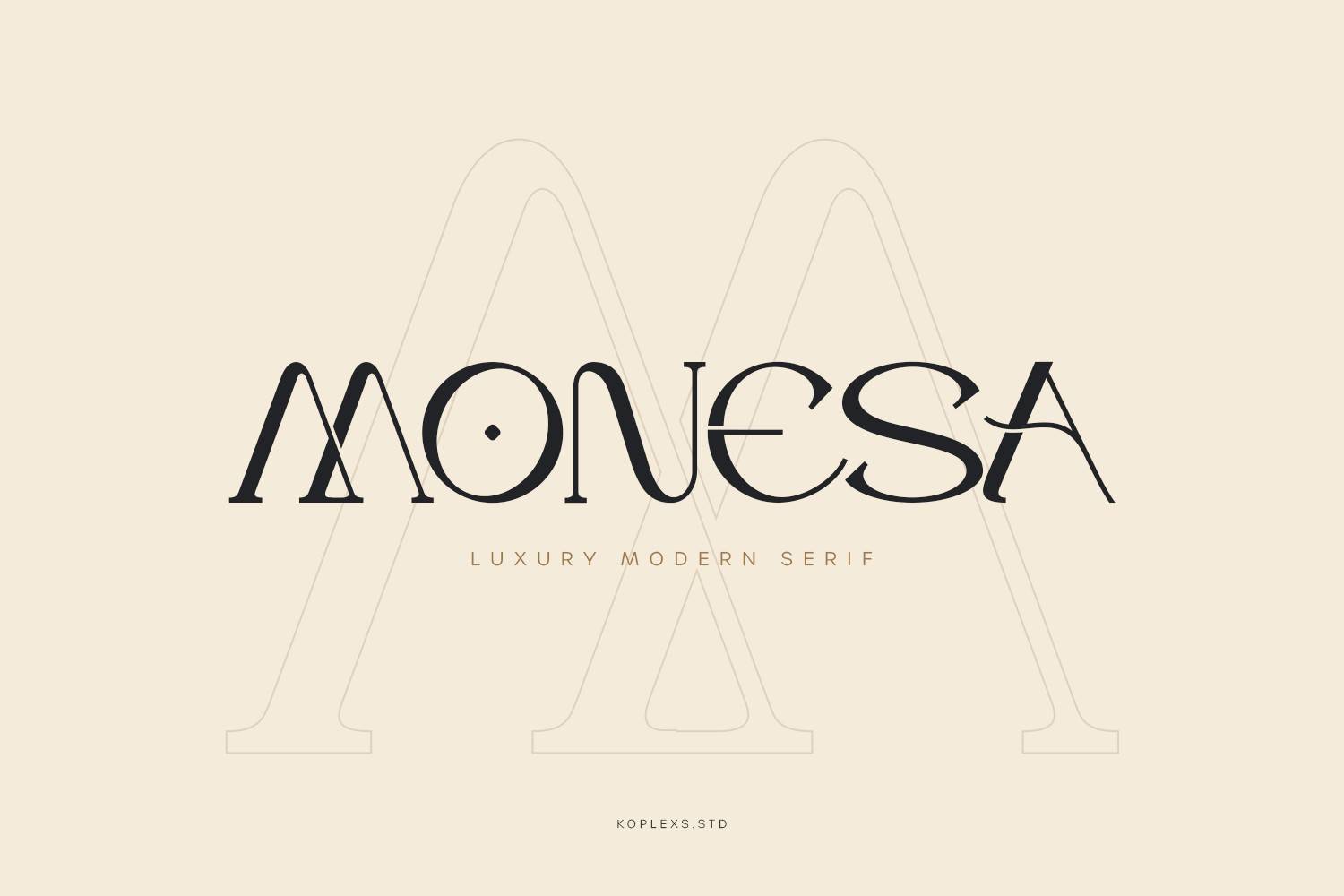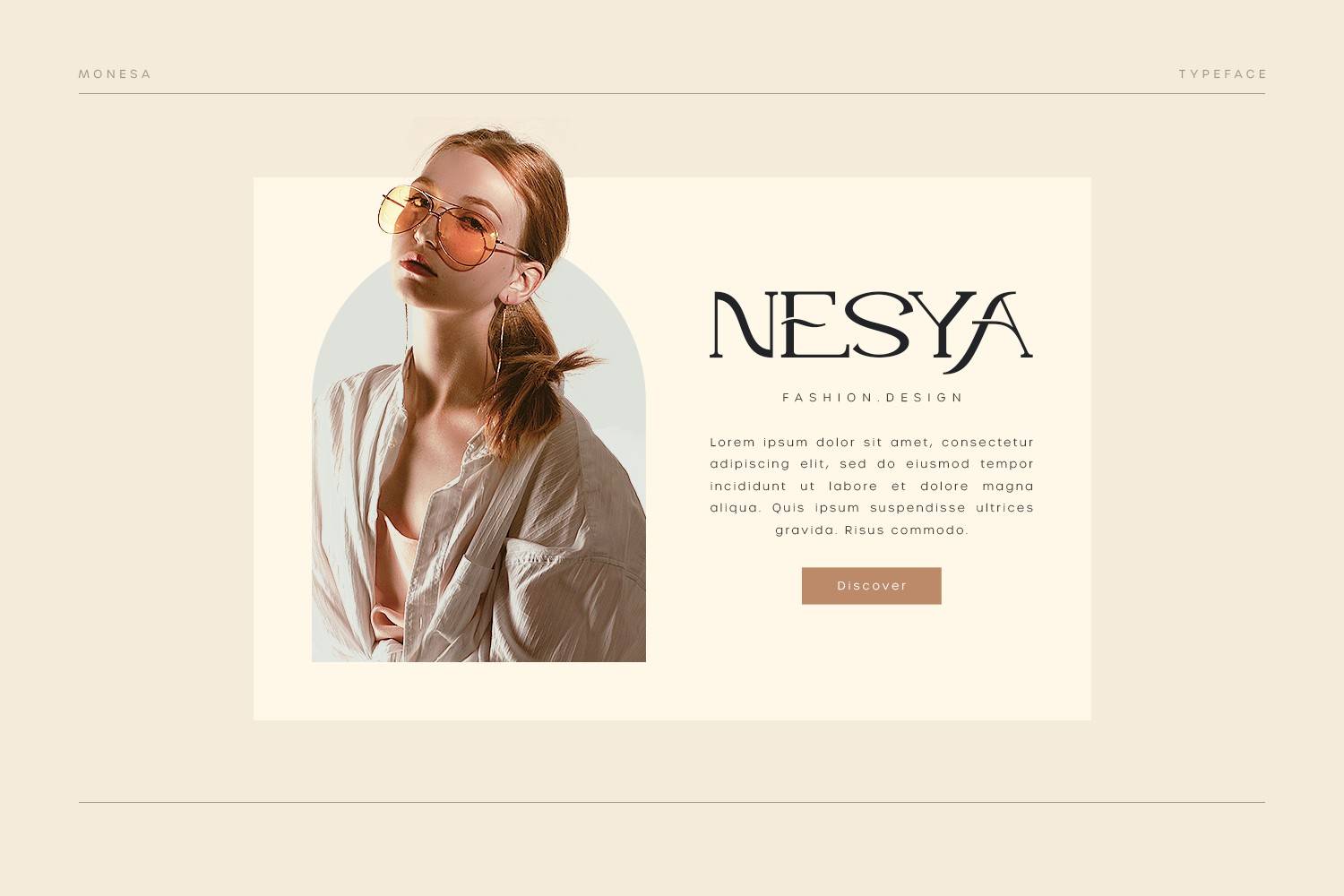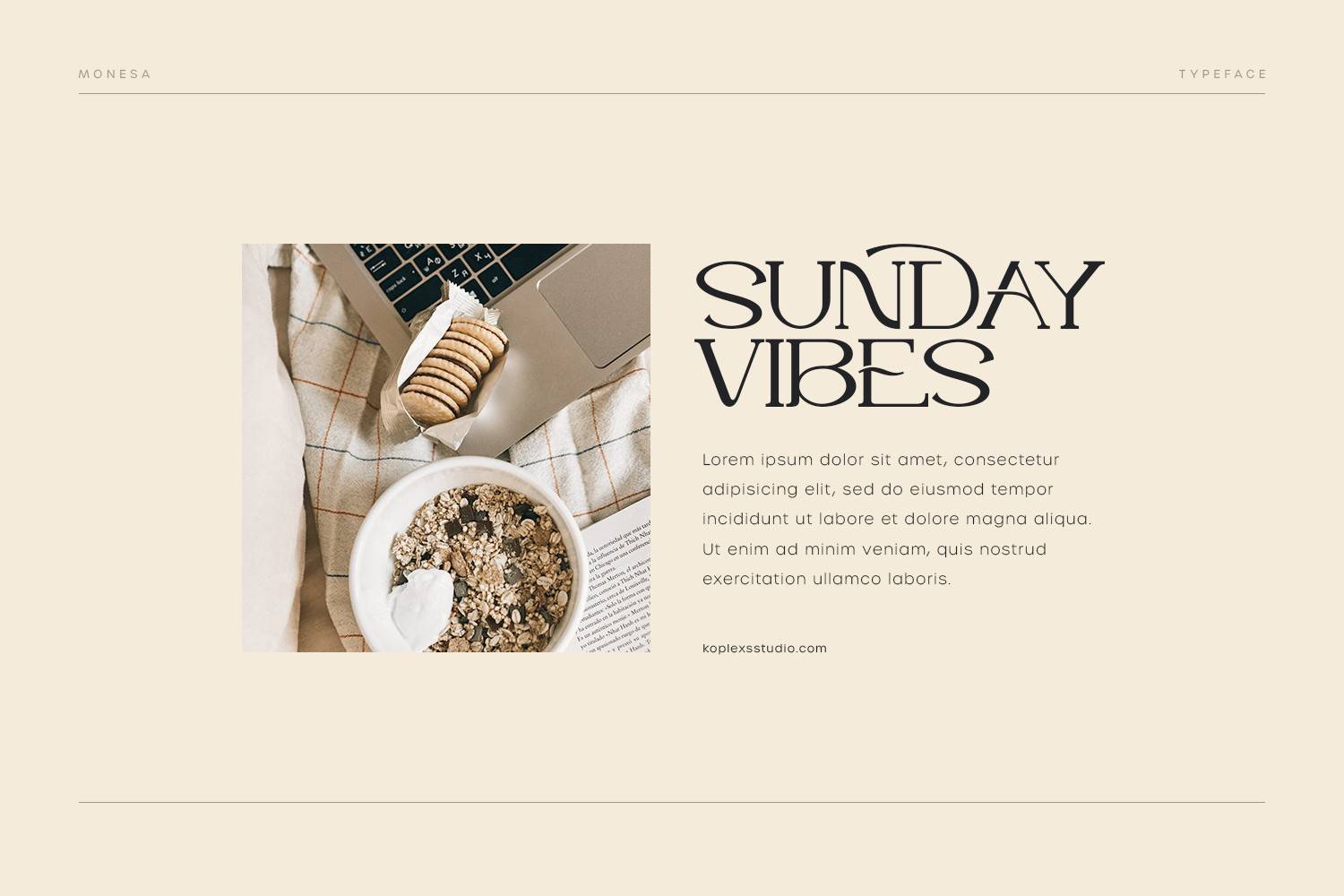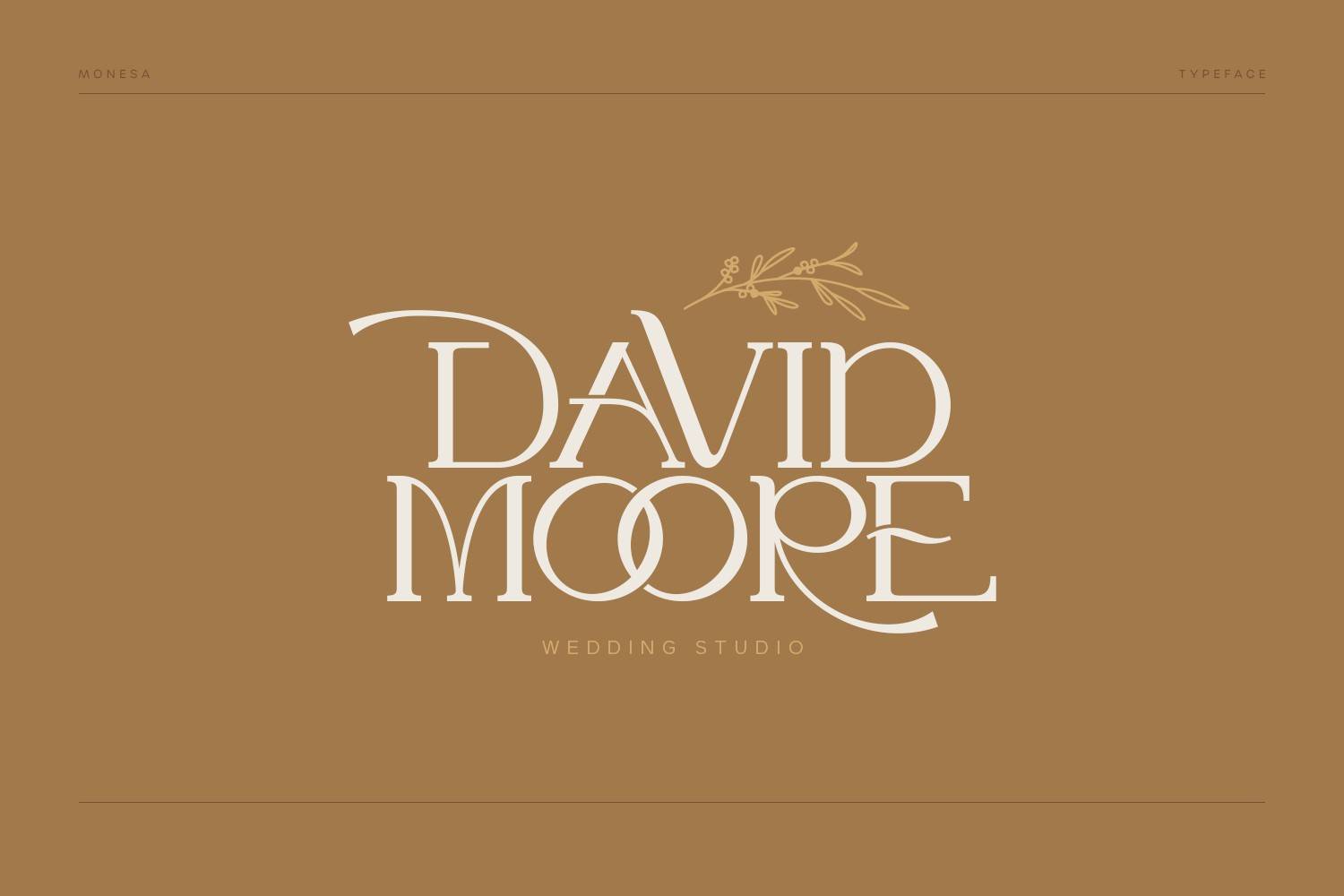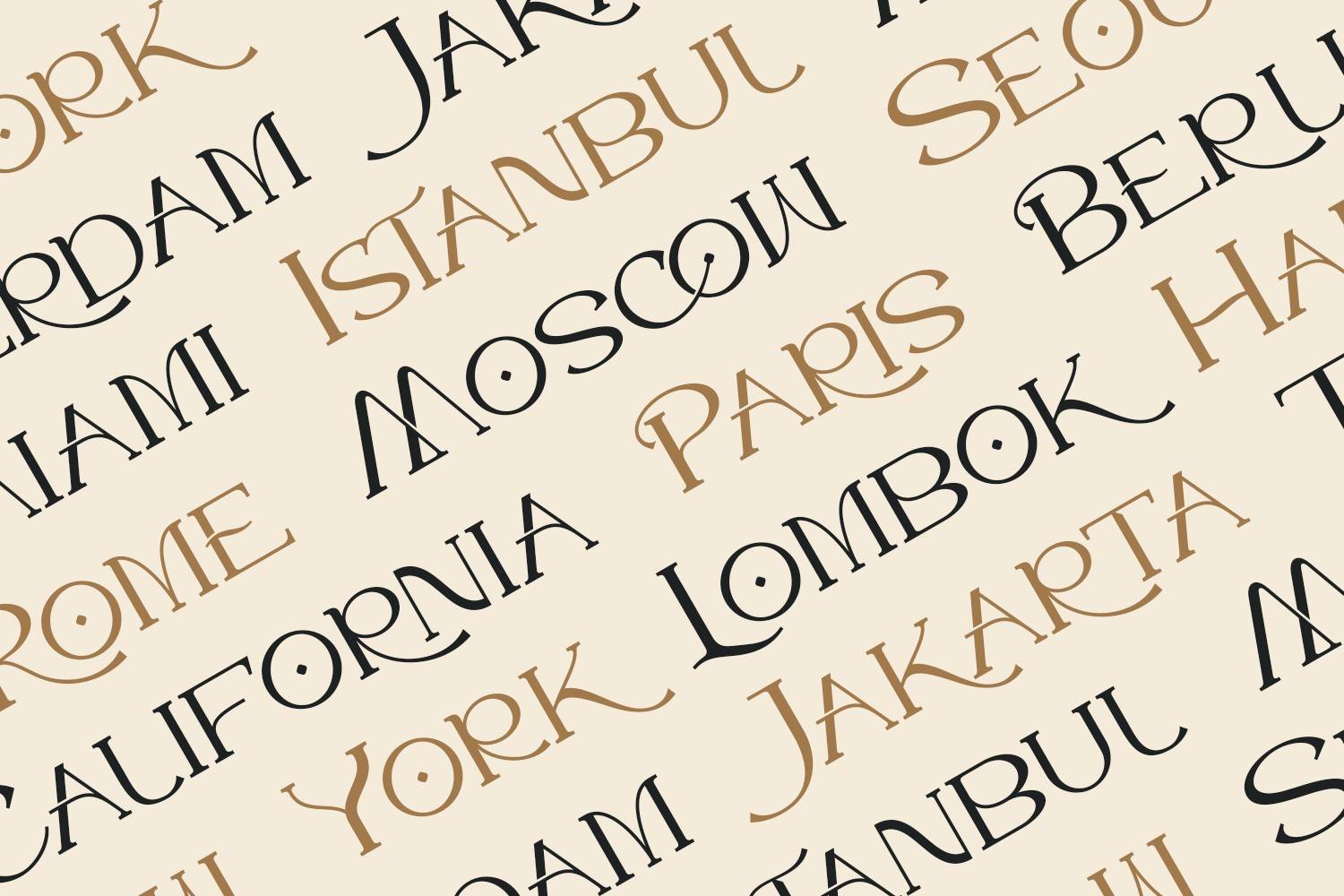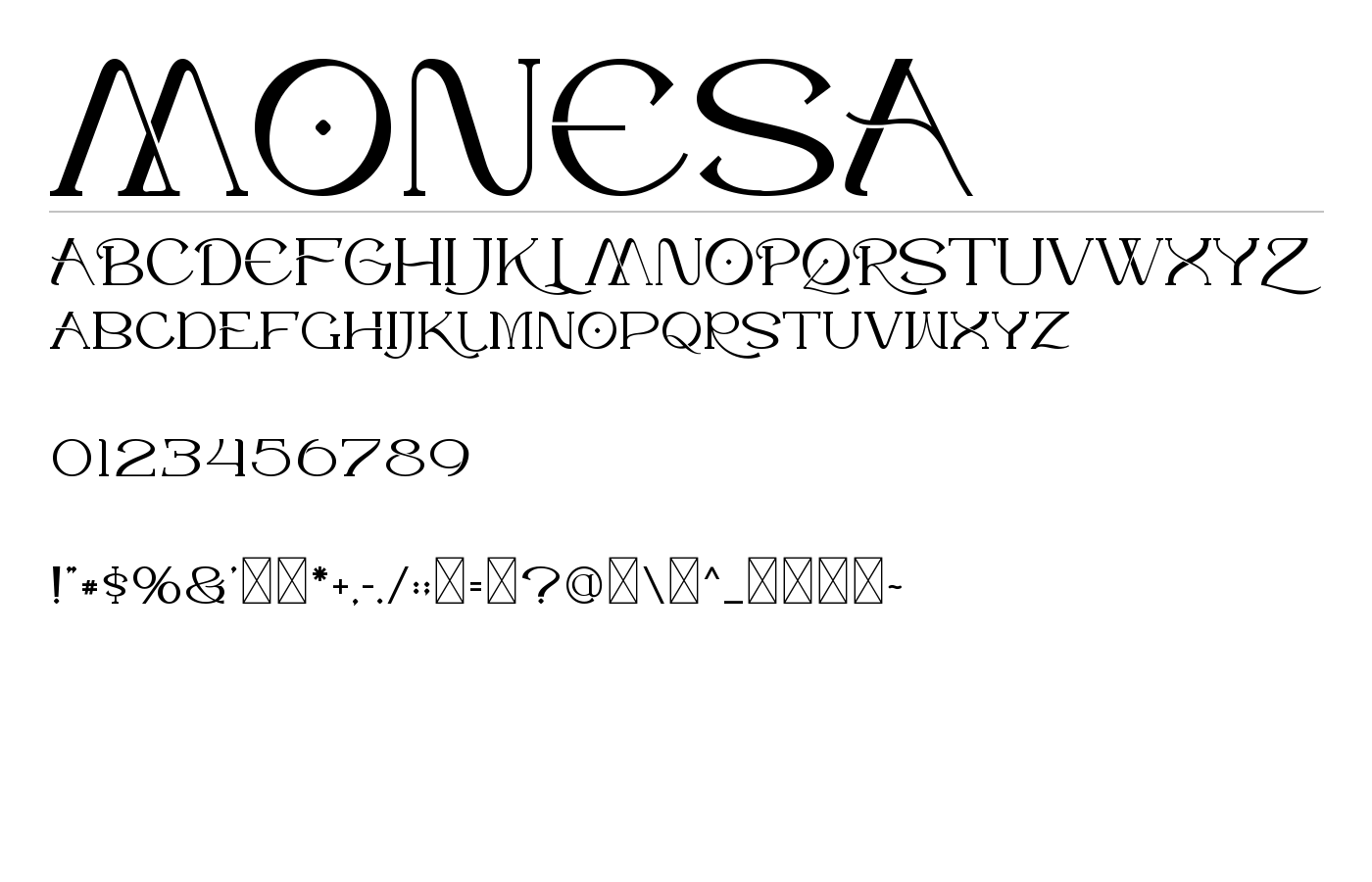
Monesa is a delicate serif font featuring elegant, high-contrast strokes with thin, finely tapered serifs that give it a refined and artistic flair. Its stylized letterforms, including unique swashes and decorative elements, evoke a sophisticated, vintage mood perfect for luxury branding, editorial headlines, and creative design projects that seek a distinctive, graceful aesthetic. This font shines in contexts where an expressive, ornamental touch is desired, adding personality without sacrificing readability.
Monesa Font
About Monesa Font